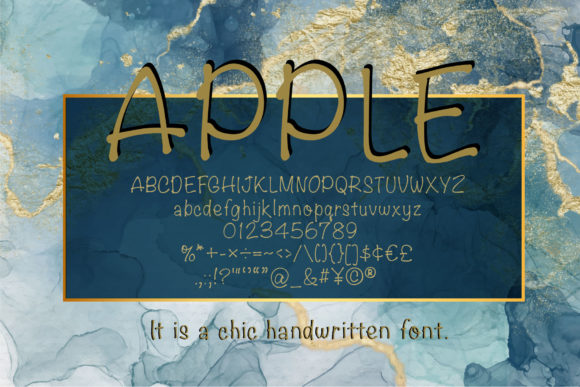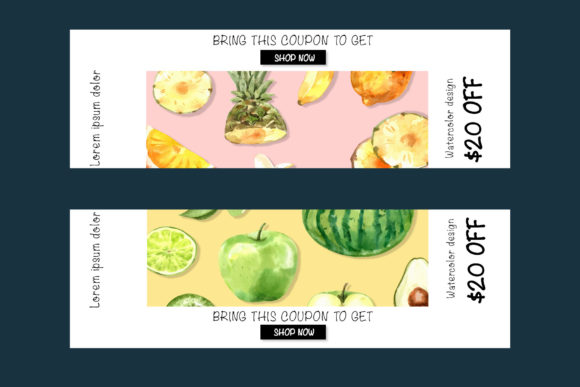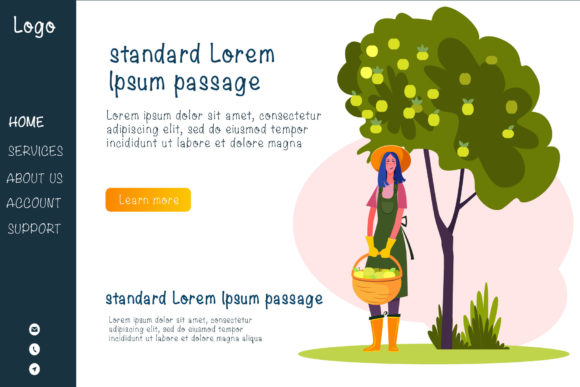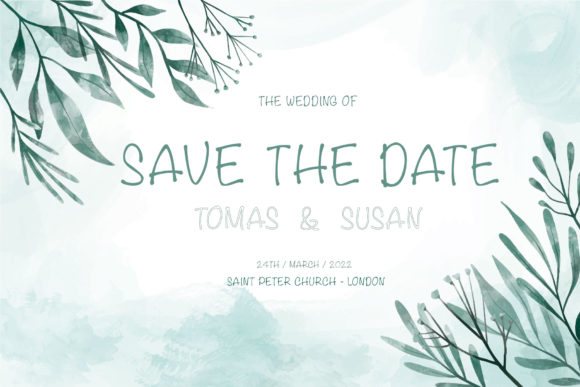
Apple Font
About Apple Font
Apple is a chic handwritten font. It will add a fun touch to your designs! Use it for logos, wedding invitations, blogs, business cards, book covers and much more.